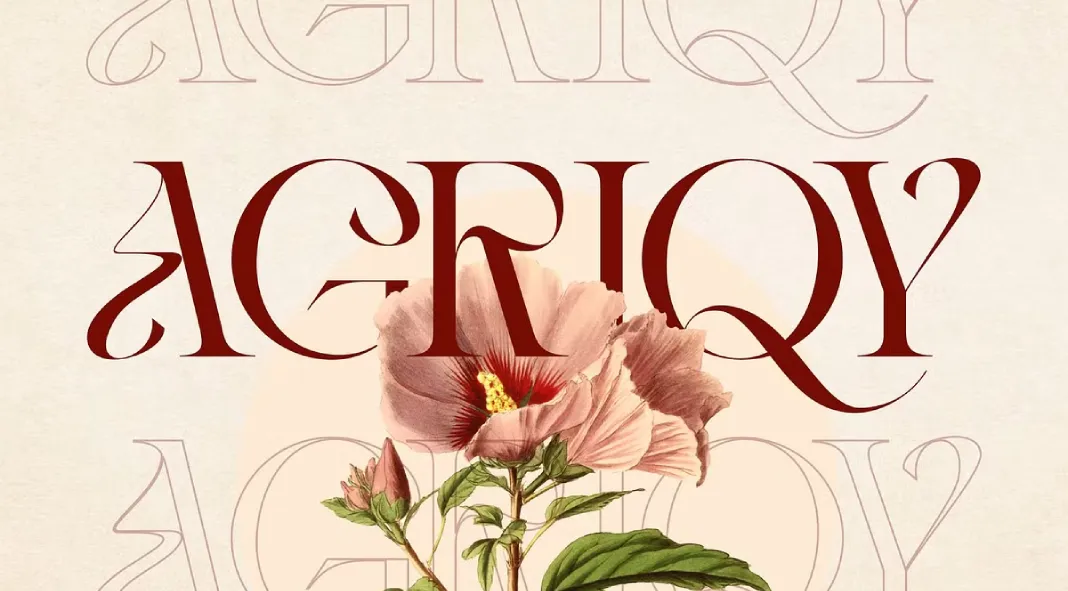
The Vintage Agriqy font by Nirmana Visual is a masterfully designed serif typeface that effortlessly blends classic elegance with contemporary appeal. This font is designed to meet the versatile needs of modern designers, making it an ideal choice for a broad spectrum of design projects, including logos, branding, social media posts, advertisements, and product designs.
Vintage Agriqy Font by Nirmana Visual
Design and Aesthetic Appeal
Vintage Agriqy stands out with its strikingly refined serif forms that exude a sense of sophistication and timeless beauty. The font captures the essence of vintage typography while infusing a fresh and modern twist. Its sharp, clean lines and balanced proportions create a harmonious visual rhythm that is both pleasing to the eye and highly legible, even at smaller sizes.
The uppercase characters of Vintage Agriqy are particularly noteworthy for their bold presence and distinctive flair, making them perfect for headlines, logos, and other applications where impact is essential. The lowercase letters complement the uppercase forms beautifully, offering a more subdued yet equally elegant style that works well for body text and smaller design elements.
Typography Features
One of the standout features of Vintage Agriqy is its extensive character set, which includes a full range of uppercase and lowercase letters, numerals, punctuation marks, and special characters. This comprehensive glyph set ensures that designers have all the tools they need to create cohesive and visually appealing designs across multiple mediums.
The font also includes beautifully crafted ligatures and alternate characters, adding a layer of customization that allows for greater creativity in typographic layouts. These stylistic alternates provide designers with the flexibility to experiment with different looks and achieve the perfect balance for their specific project needs.
Versatility and Usability
Vintage Agriqy’s versatility is one of its greatest strengths. Whether you’re working on a logo design, a branding project, or social media graphics, this font adapts seamlessly to various contexts. Its timeless appeal makes it suitable for both modern and retro-themed designs, allowing it to bridge the gap between past and present with ease.
For branding projects, Vintage Agriqy offers a distinct voice that can set your brand apart from the competition. Its classic yet contemporary aesthetic ensures that your brand identity will remain relevant and memorable in a constantly evolving market. Additionally, the font’s clarity and legibility make it a practical choice for advertising and product design, where readability is crucial.
In conclusion, Vintage Agriqy by Nirmana Visual is a beautifully crafted serif font that offers a perfect blend of vintage charm and modern sophistication. Its versatility, extensive character set, and high-quality design make it an excellent choice for a wide range of design projects. Whether you’re looking to create a standout logo, compelling social media graphics, or polished branding materials, Vintage Agriqy delivers the typographic harmony and elegance you need to make a lasting impression.